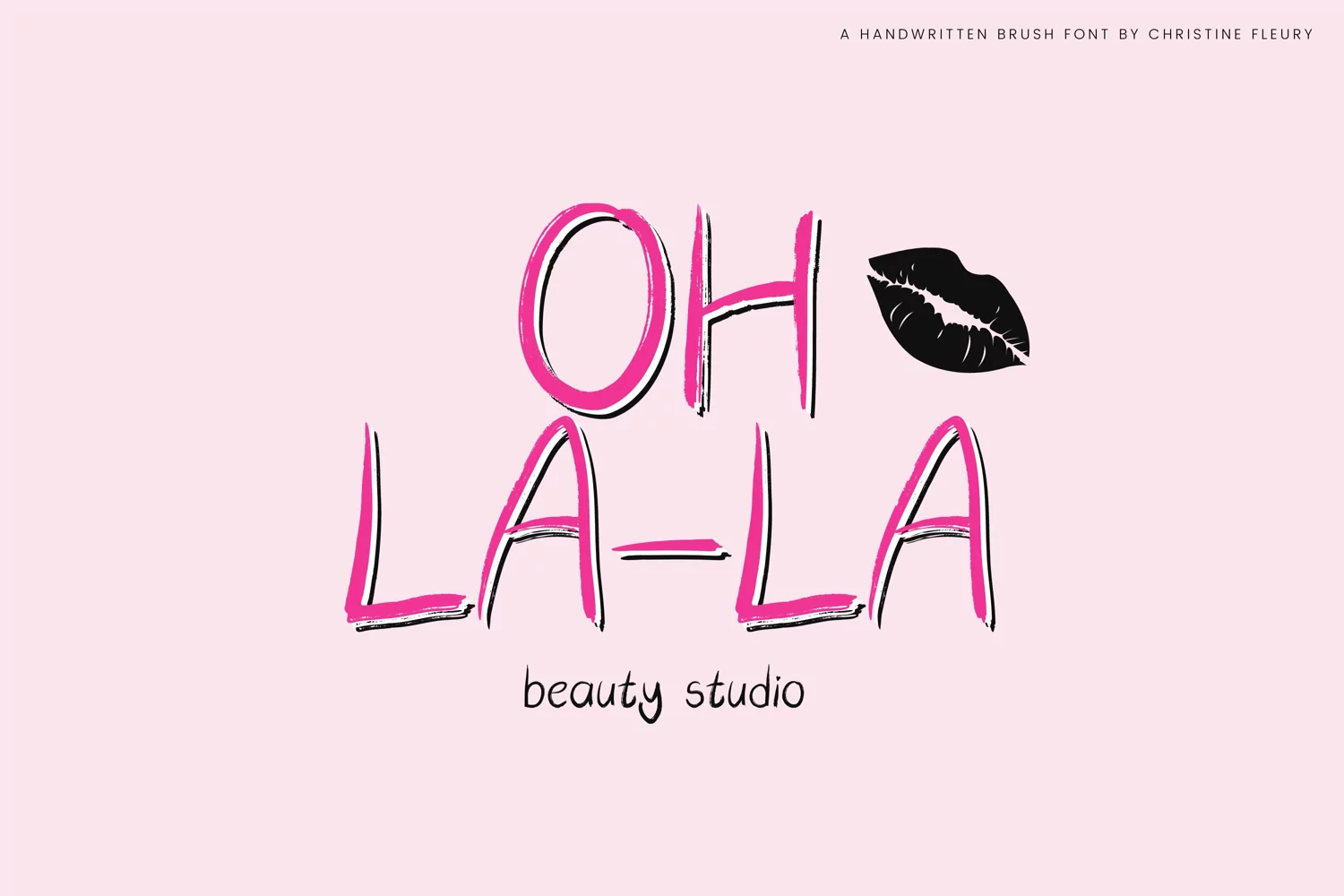
XOX LOLA is a handwritten brush-style font with multilingual characters. Perfect for Crafters, logos, Cards, Quotes, Branding, Ornaments, Mugs, prints, and more!